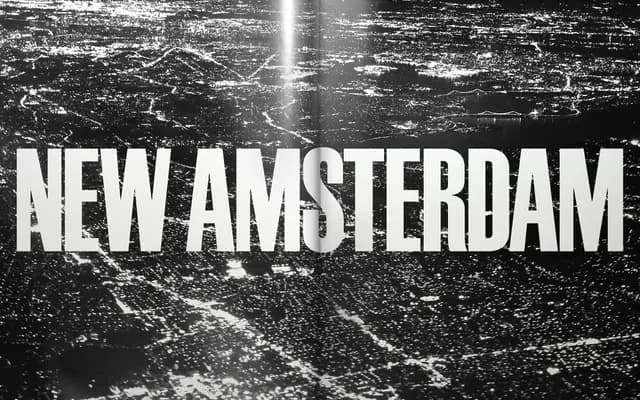
Bal Grotesk
A grotesque sans with nine weights, full italic coverage, a matching monospaced subfamily and variable font versions for both proportional and mono cuts.
The collection spans nine weights from Thin to Black across proportional and monospaced versions, each with a complete italic set. Variable fonts are available for both the standard and mono cuts, giving flexible control over weight along a continuous axis. The foundry's specimen leans into a nocturnal, Parisian atmosphere, positioning the typeface as understated but purposeful.
Named and styled as a grotesk, the family follows the conventions of the grotesque sans-serif genre with a full weight range and a paired monospaced subfamily.